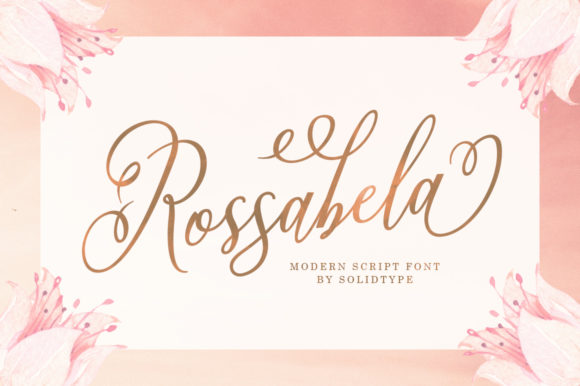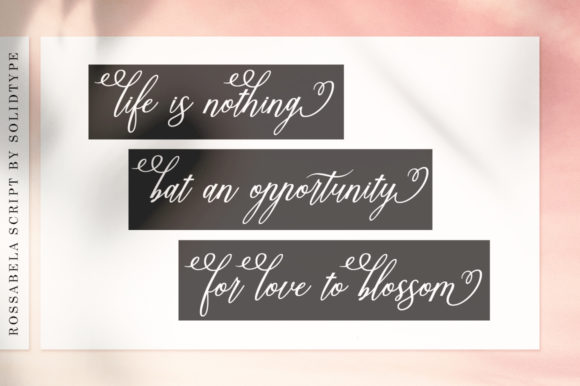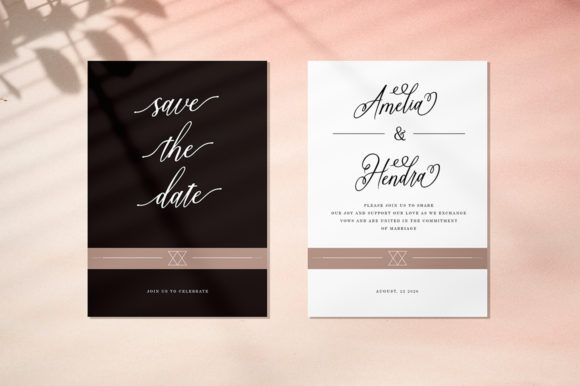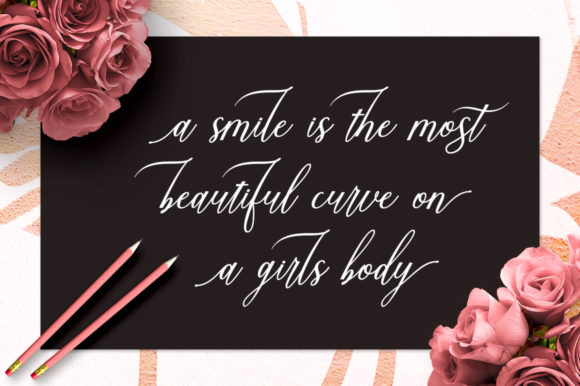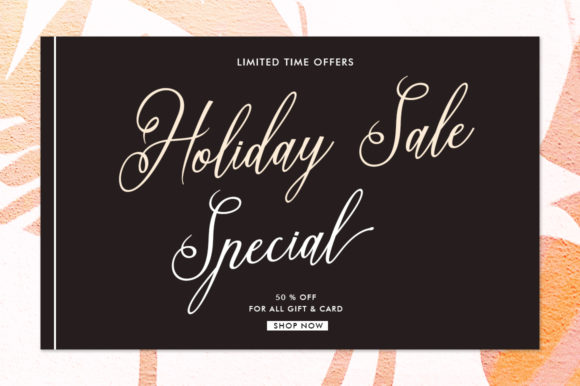
Rossabela Font
About Rossabela Font
Rossabela is an elegant and flowing handwritten font. It is PUA encoded which means you can access all of the glyphs and swashes with ease! It features a varying baseline, smooth lines, gorgeous glyphs and stunning alternates. It maintains its classy calligraphic influences while feeling contemporary and fresh. Fall in love with Rossabela and bring your projects to the highest levels!